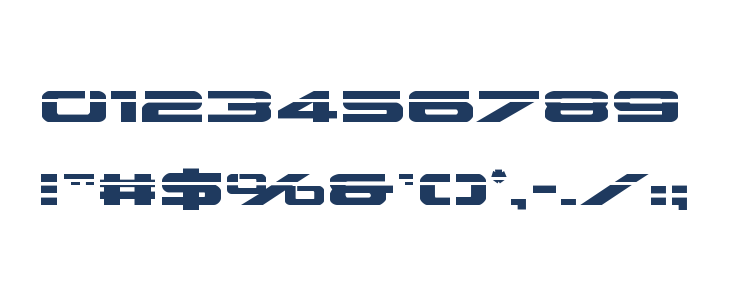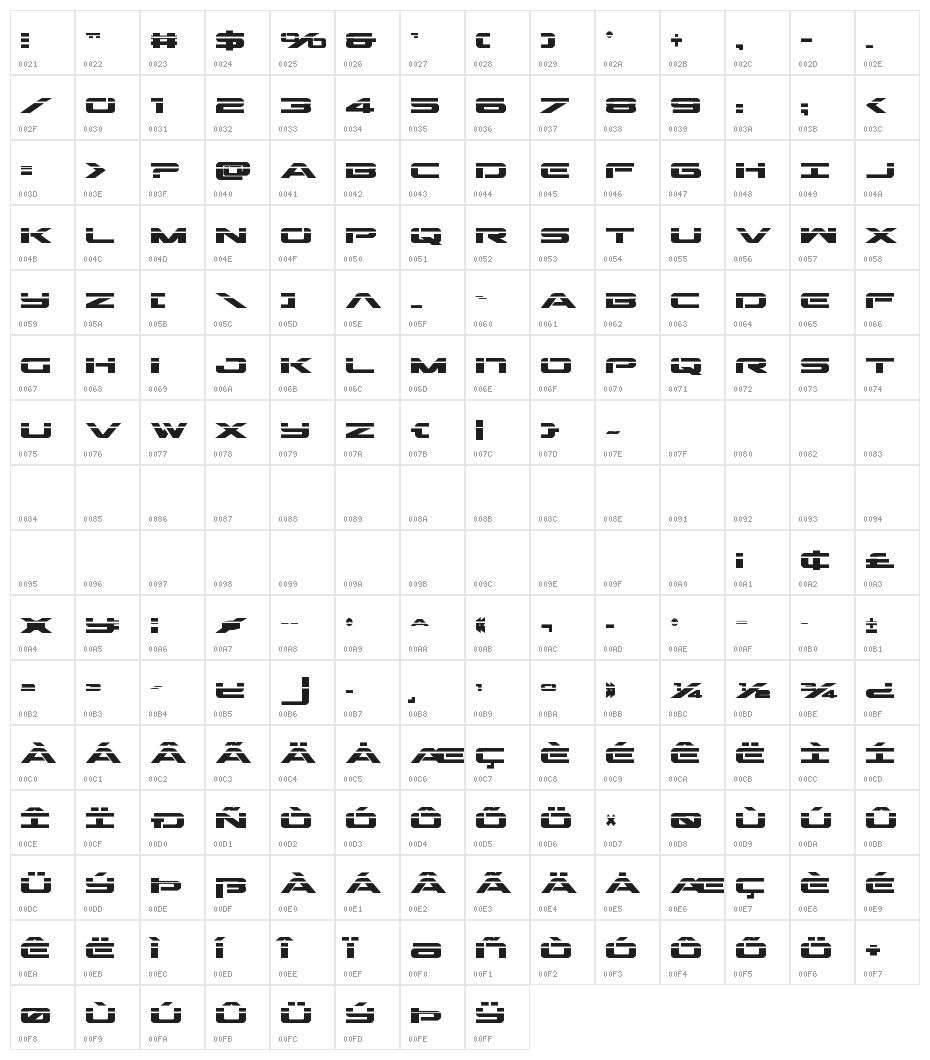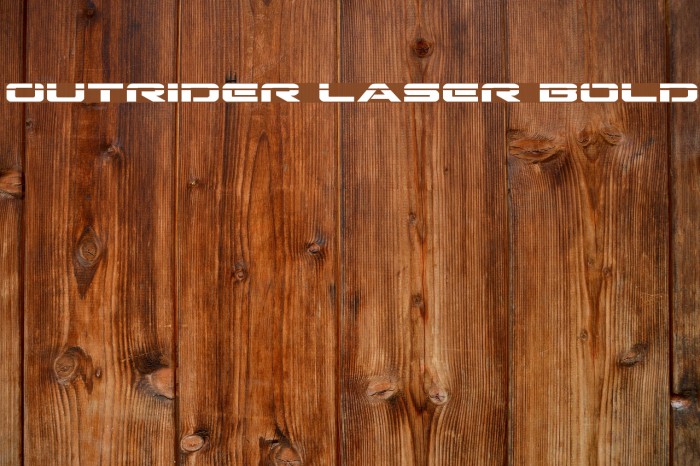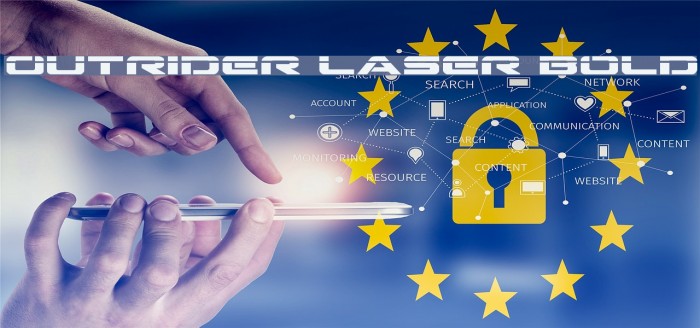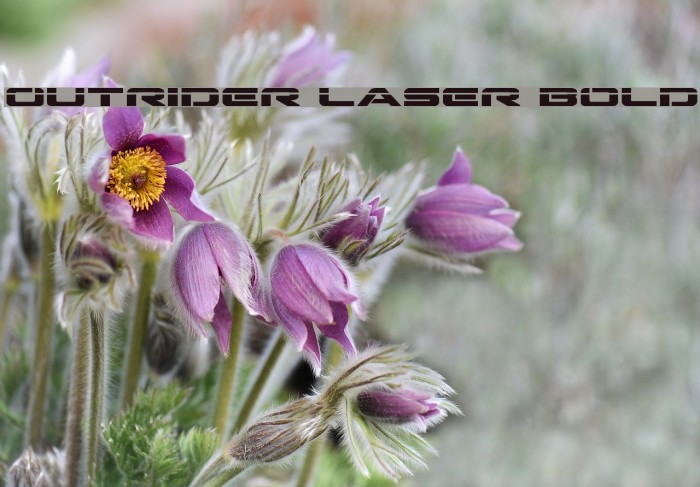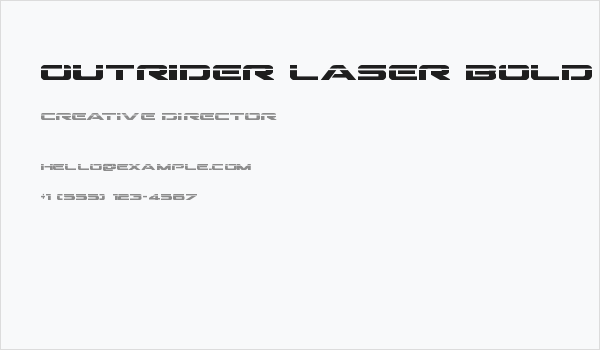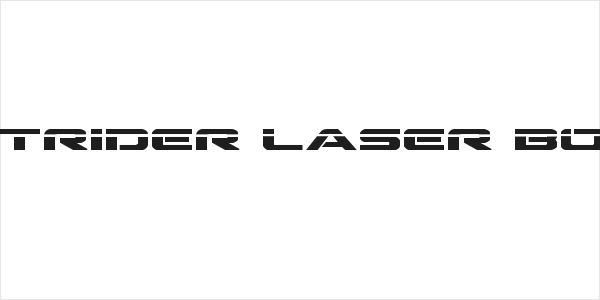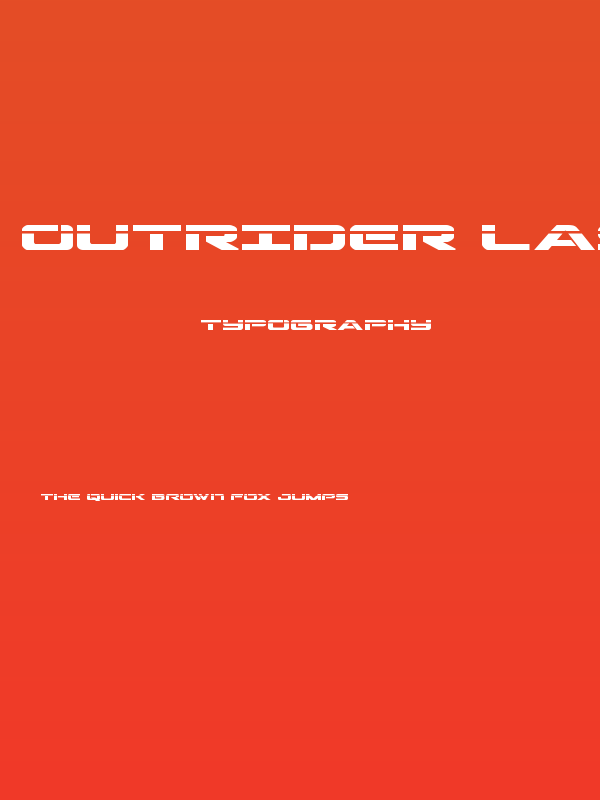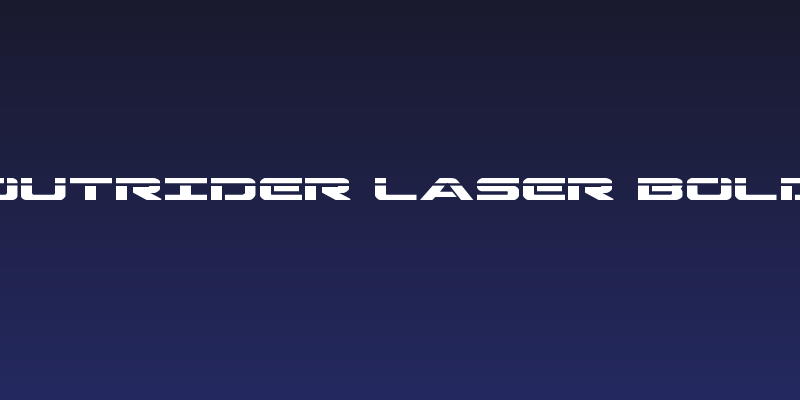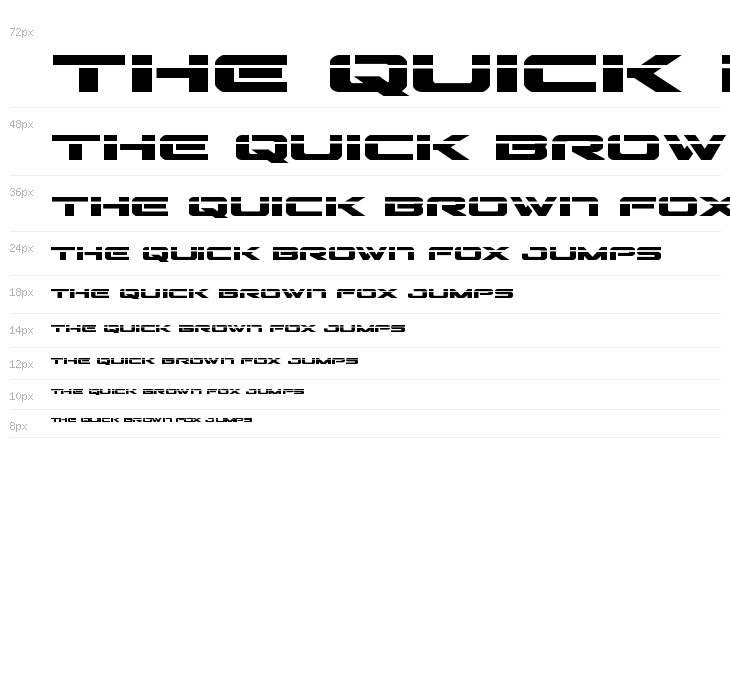
Outrider Laser Bold Font
Outrider Laser Bold Description
This font features a futuristic and bold design, characterized by sharp angles and geometric shapes. The uppercase letters are distinct with a strong presence, while the lowercase letters maintain a cohesive style. The numerals are consistent with the overall aesthetic, providing a uniform look. Special characters are designed to complement the bold and modern appearance, making them suitable for various creative applications. The font's design suggests a high-tech or sci-fi theme, ideal for projects that require a dynamic and impactful visual statement.
| Proposed Projects | Ideal for sci-fi themed designs, tech branding, video game titles, and futuristic posters. |